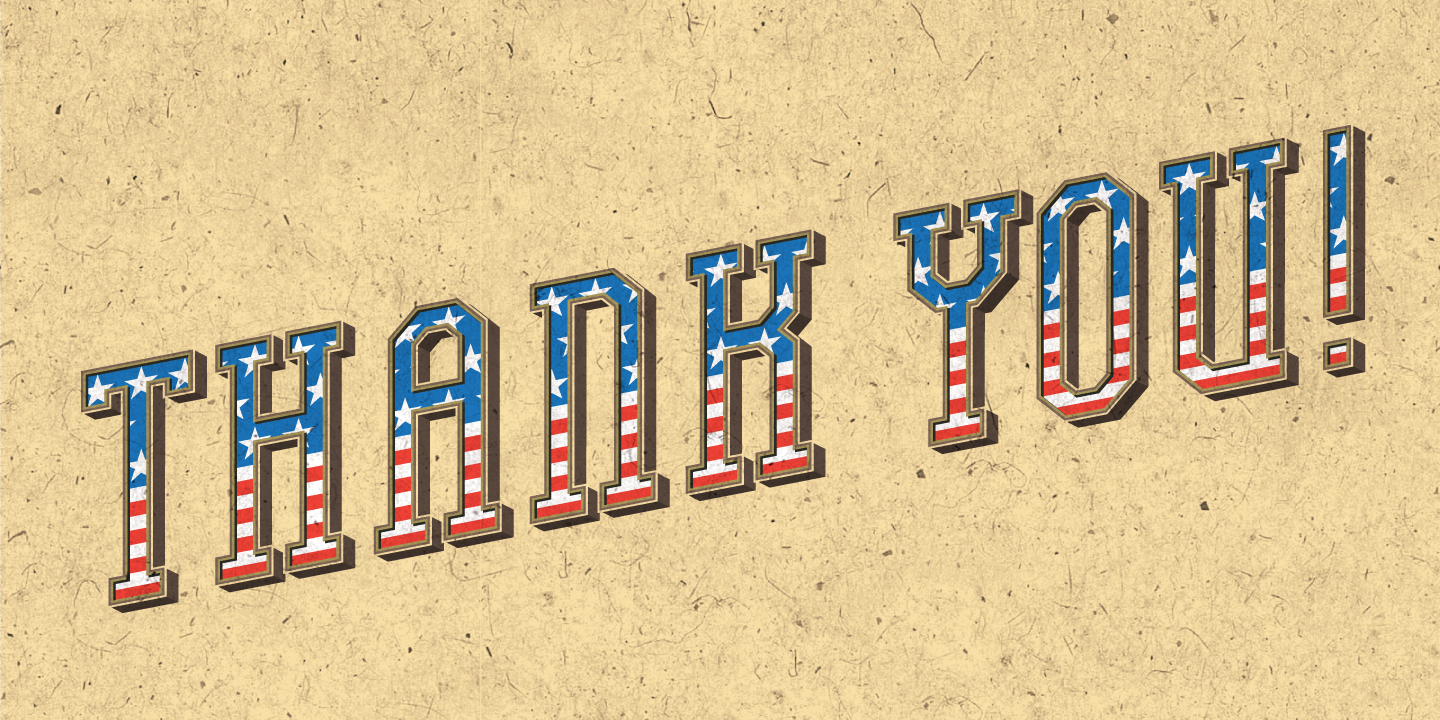
Bodybuilder Free Download
Bodybuilder Font Free Download
Bodybuilder Font Free Download is a powerful and heavy display typeface designed to deliver maximum impact. With its bold letterforms and strong geometric structure, it is ideal for sports branding, fitness promotions, posters, apparel design, and advertising campaigns that require strength and attention-grabbing visuals.
The font’s robust construction and high readability make it highly effective for large headlines and statement graphics. Its aggressive and solid appearance conveys energy, resilience, and determination, perfectly suiting projects that aim to inspire action and confidence.
Bodybuilder is an essential choice for designers looking to infuse their projects with power, toughness, and a commanding visual presence.